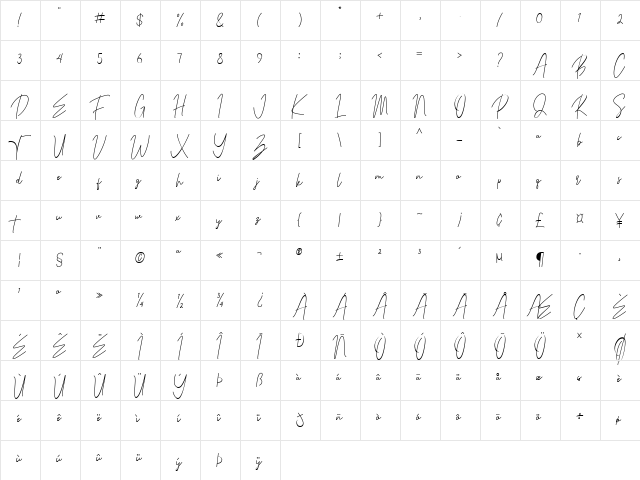
Parachute Signature Regular
| Foundry | Bagas Satriawan |
| Designer | Bagas Satriawan |
Design Context for Parachute Signature Typeface
Parachute Signature is a composed and adaptable typeface that performs quietly and consistently across a wide range of design contexts.